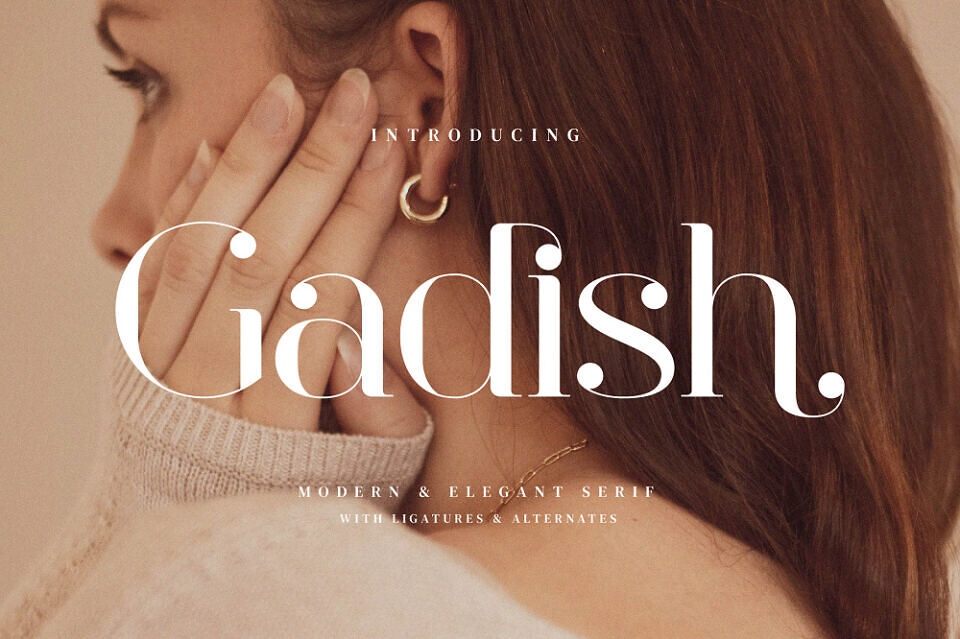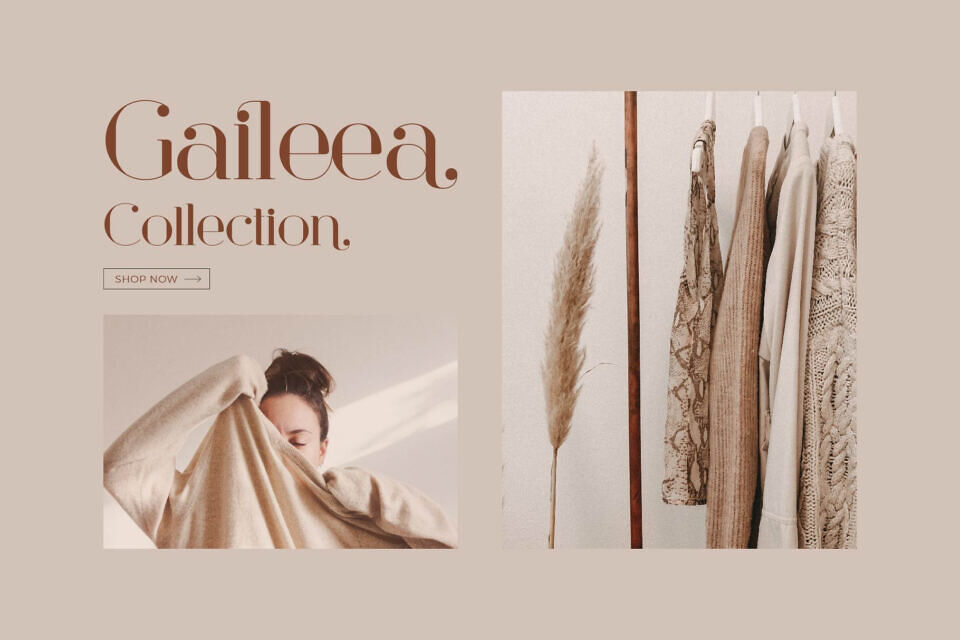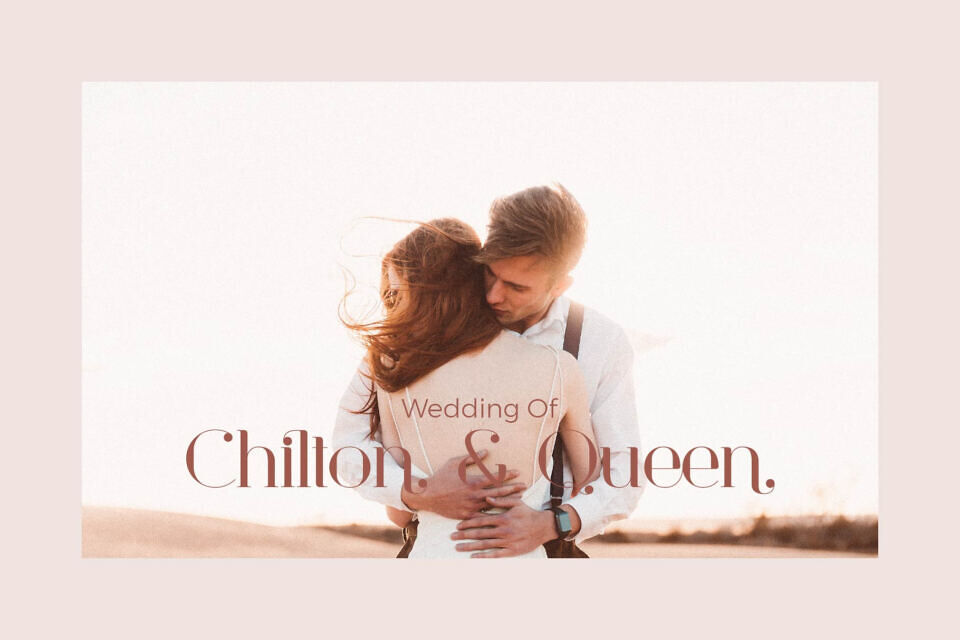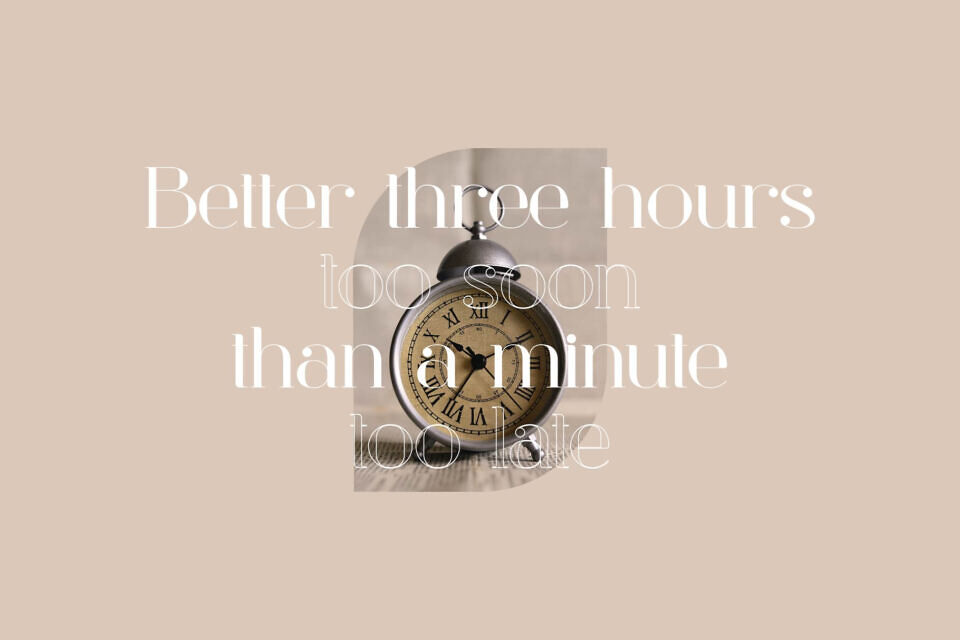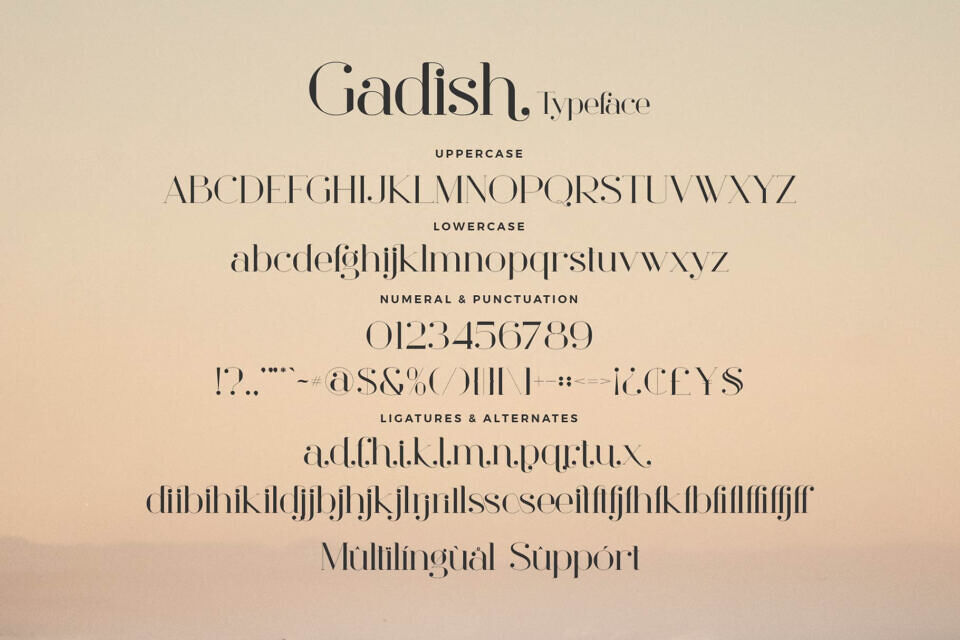
Gadish Font
Gadish is an elegant serif font that draws inspiration from minimalist design. It’s well-suited for creating templates, brochures, videos, and advertising materials, as well as logos and branding elements, making it a versatile choice for various design projects.